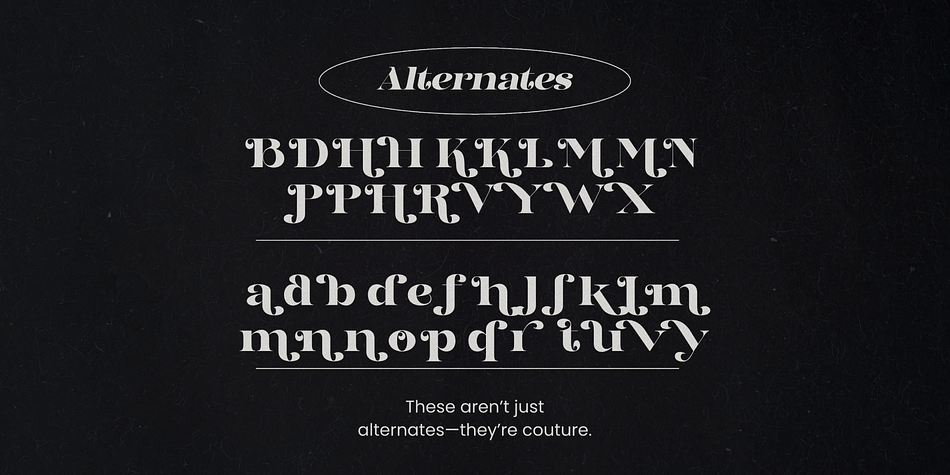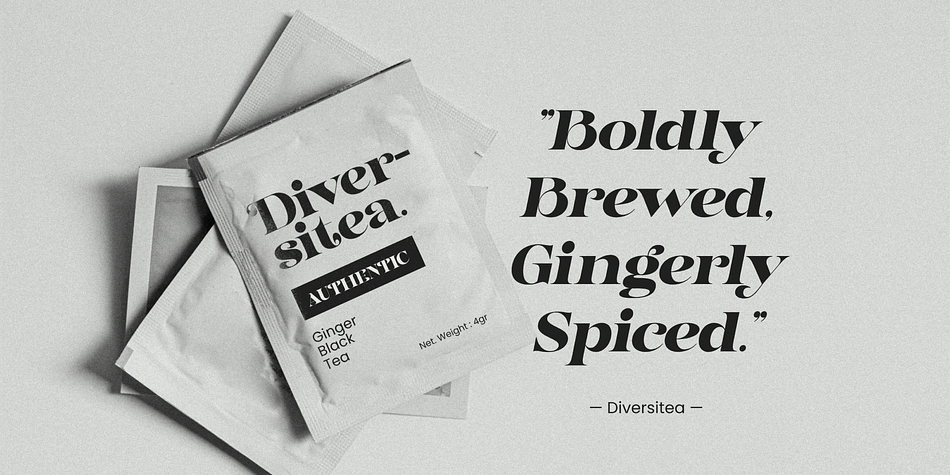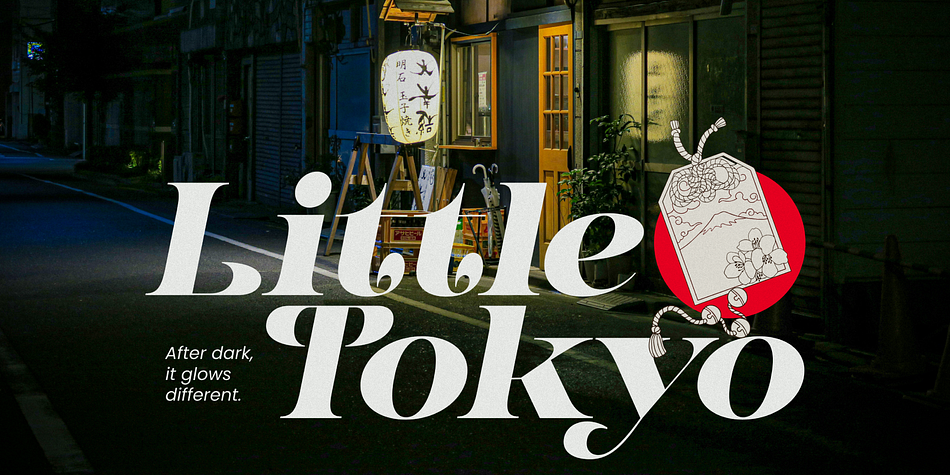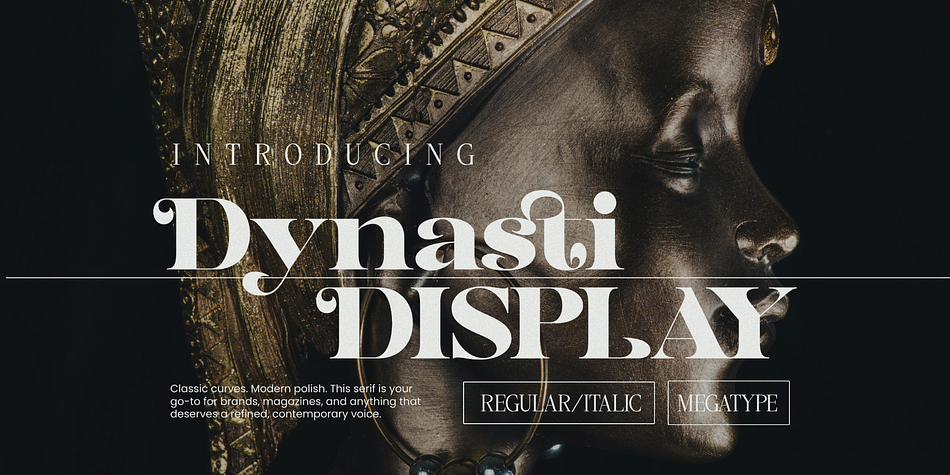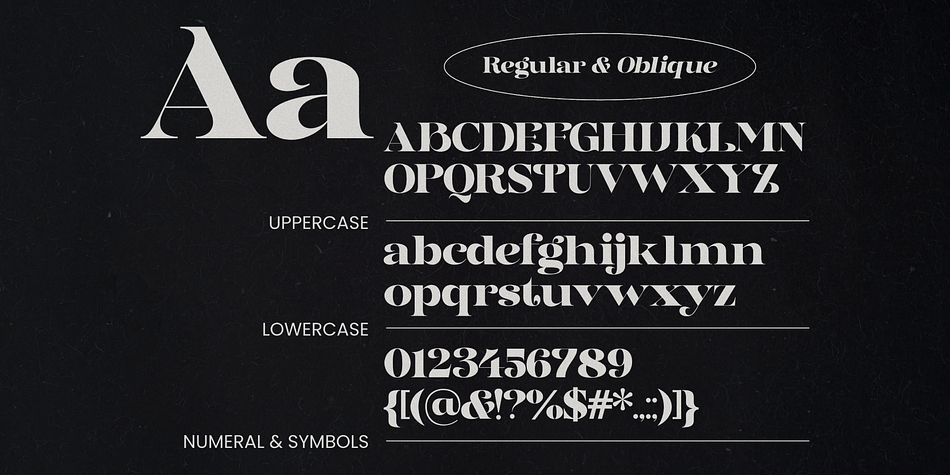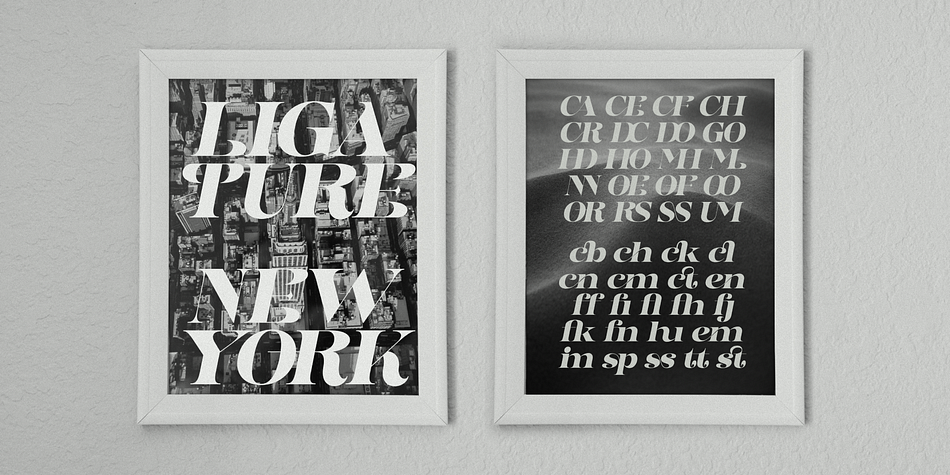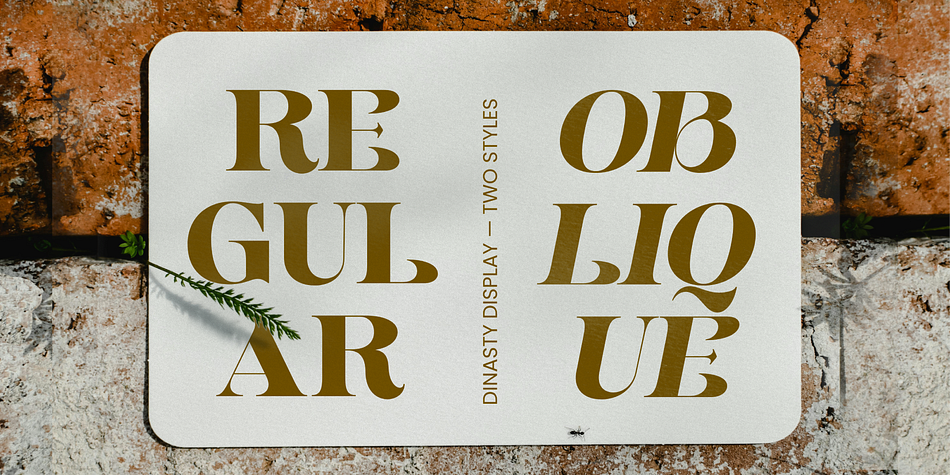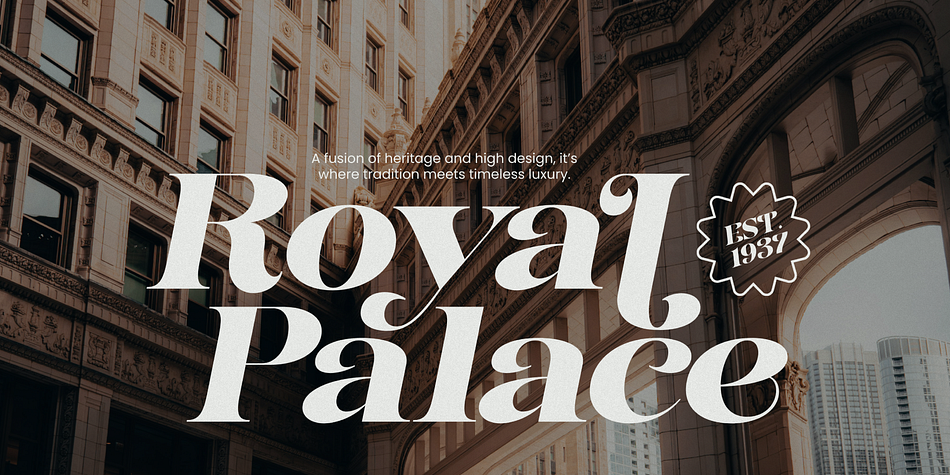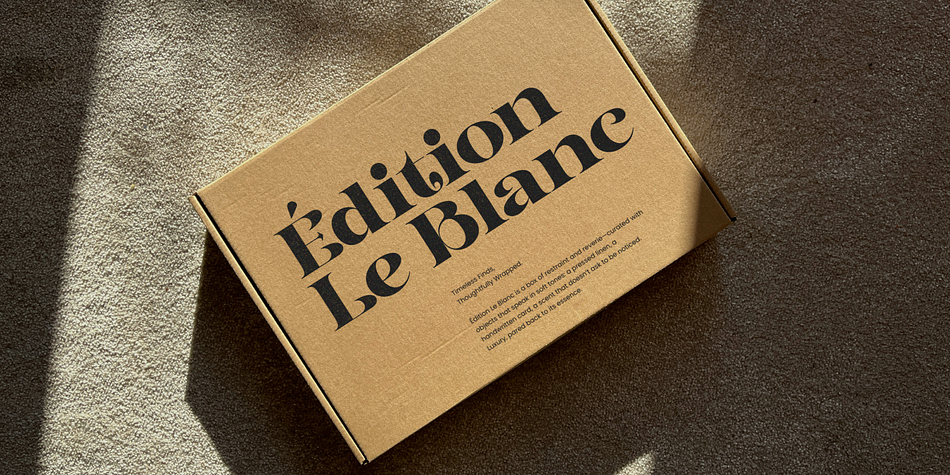
Dynasti
Dynasti is a serif font family. This typeface has two styles and was published by Mega Type.
INTRODUCING Dynasti Display - Decorative Serif Typeface.
Dynasti Display is a bold decorative serif typeface characterized by its striking contrast between thick and thin strokes and its ornate, almost calligraphic elements. The uppercase letters are elegant with exaggerated terminals and unique serif designs that give them a dramatic flair. The lowercase letters maintain high contrast, with some showing elaborate swashes and unusual shapes, adding an artistic touch. The italic styles introduce a pronounced slant, enhancing the typeface’s dynamic appearance. This font is best suited for creative designs, luxury branding, and sophisticated editorial layouts where a statement is needed.
All Uppercase and Lowercase
Numbers & Symbols
Alternates and Ligatures